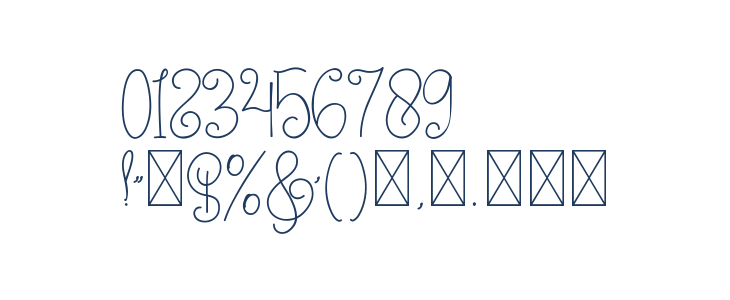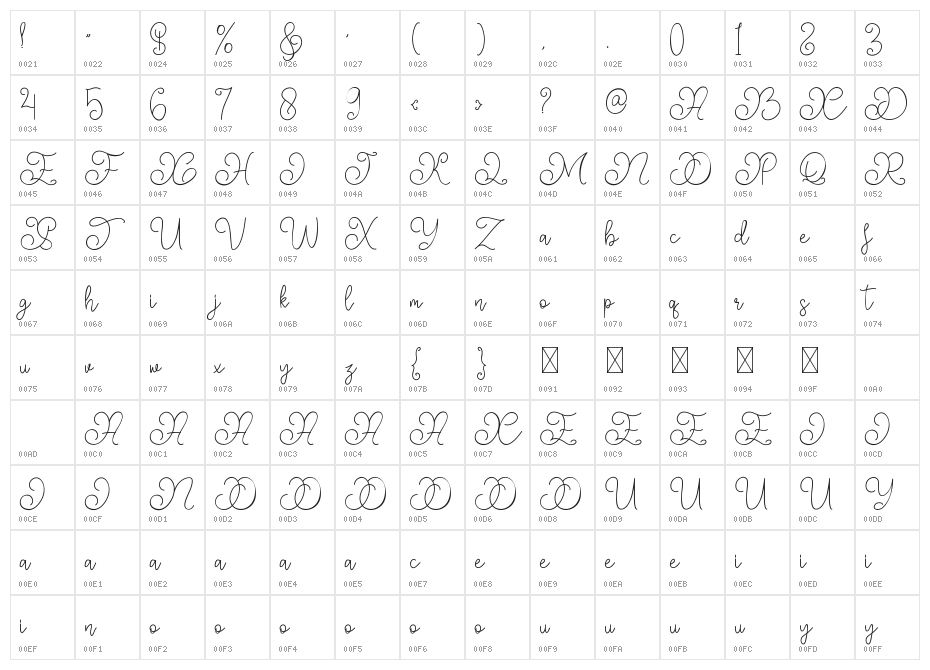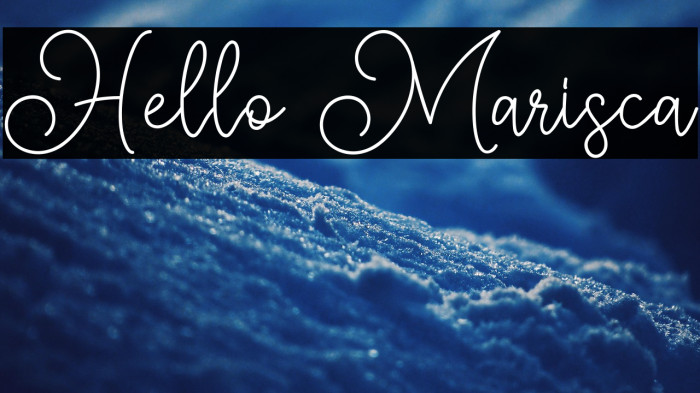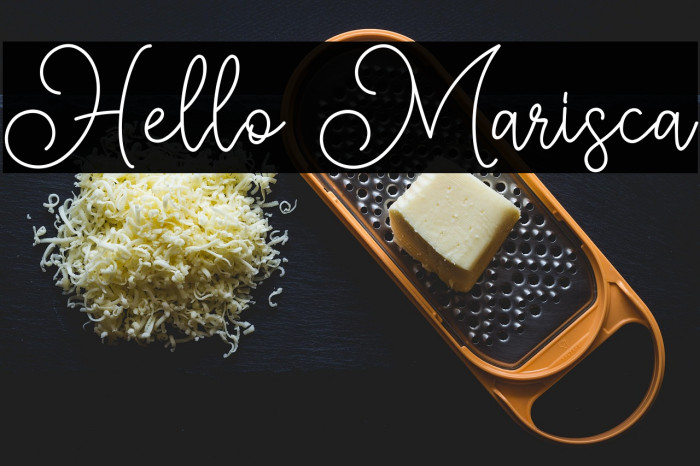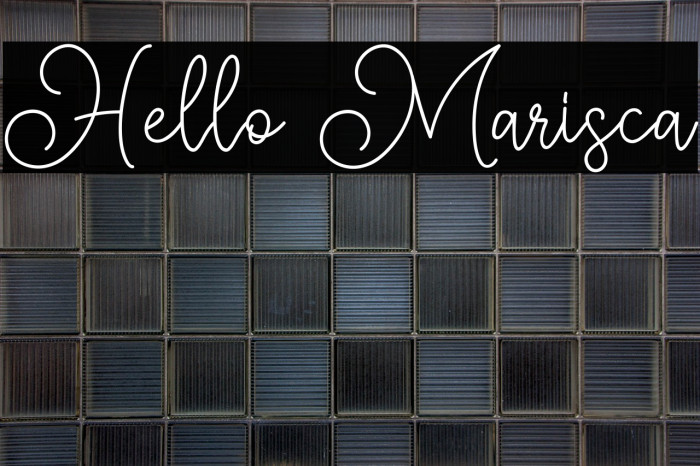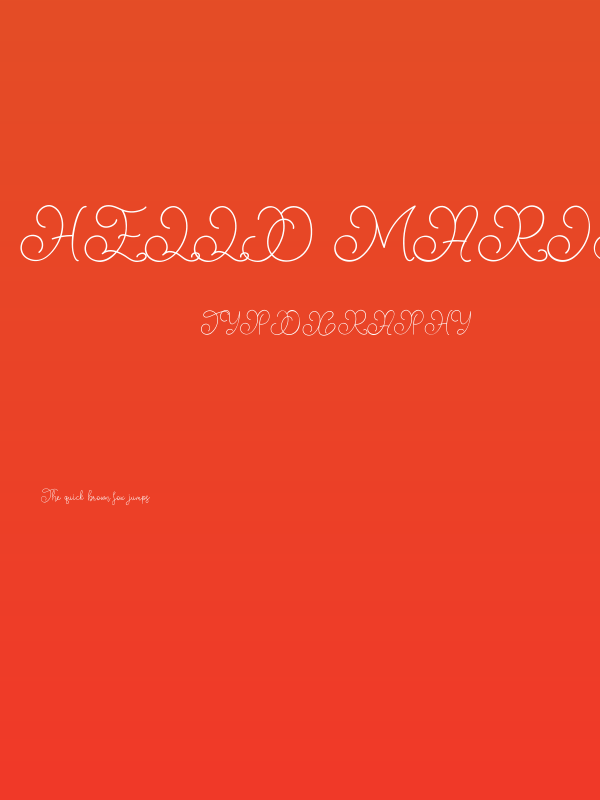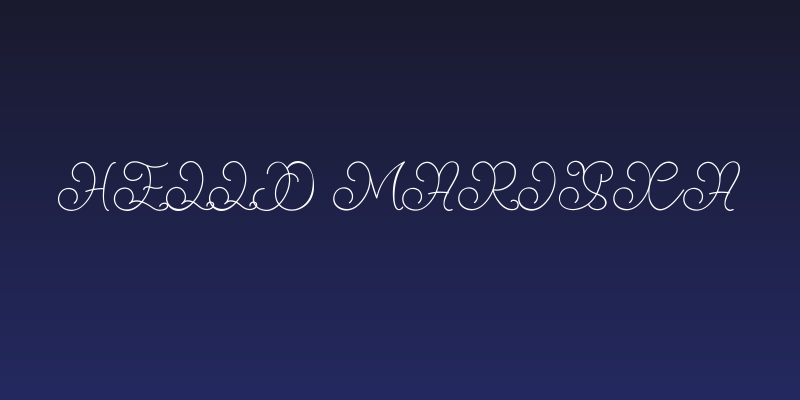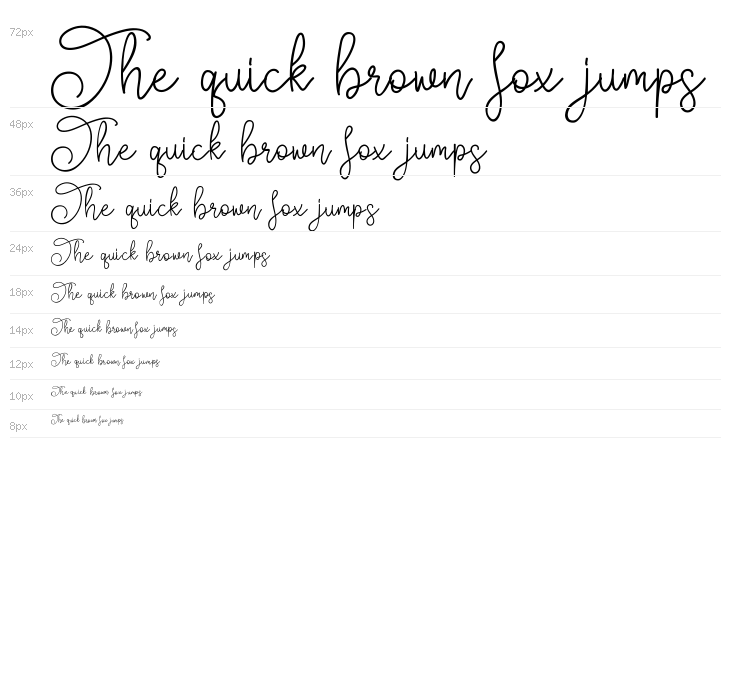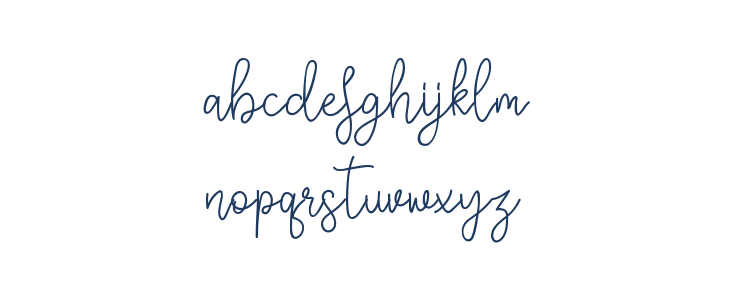
Hello Marisca Font
Hello Marisca Description
This font features a whimsical and elegant script style with a playful touch. The uppercase letters are characterized by their looping, interconnected strokes, creating a sense of fluidity and movement. The lowercase letters maintain a similar style, with a slightly more casual and relaxed appearance. The numerals are distinct and maintain the same playful loops, ensuring consistency across the character set. Special characters are designed to complement the overall aesthetic, adding to the font's versatility. This font's unique style makes it suitable for creative and decorative projects, where a touch of elegance and playfulness is desired.
| Use Case | Logos, Invitations, Decorative text |
| Proposed Projects | Ideal for wedding invitations, greeting cards, branding, and decorative posters. |